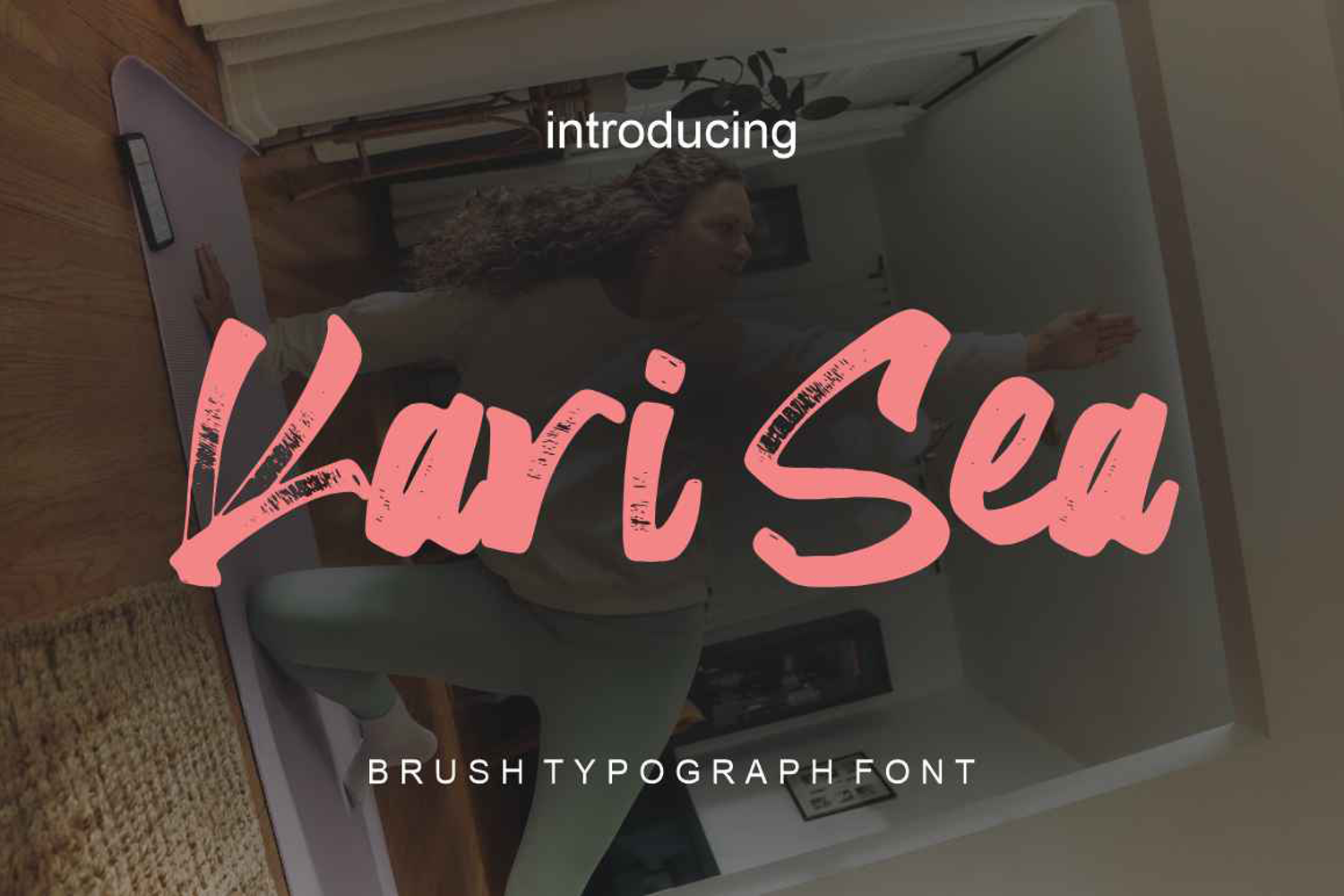
Kari Sea
Kari Sea Swash
Kari Sea is a classic/script style brush font, or a font with characteristic brush strokes. In the world of typography, this font has a flowing, handwritten feel. It is an elegant, classy, ??and refined script font.
Characteristics: It has patterned, thin, and flowing strokes aesthetic, and premium feel.
Usage: Perfect for wedding invitation designs, fashion brand logos, aesthetic quotes, greeting cards, and even digital creative projects.
Usage: Often used for titles, vintage posters, classic product logos, or retro-elegant designs.